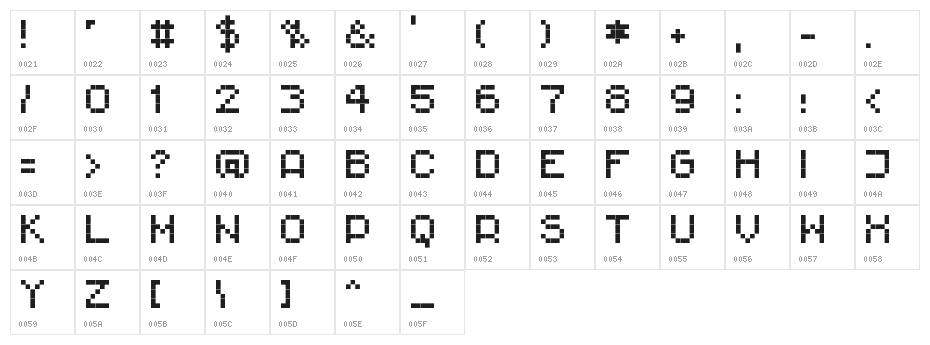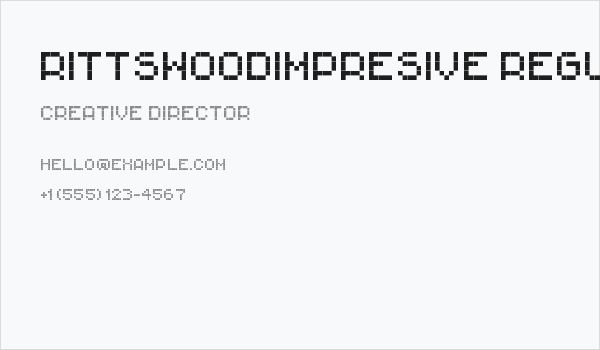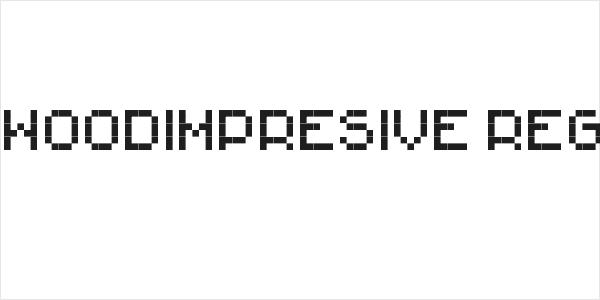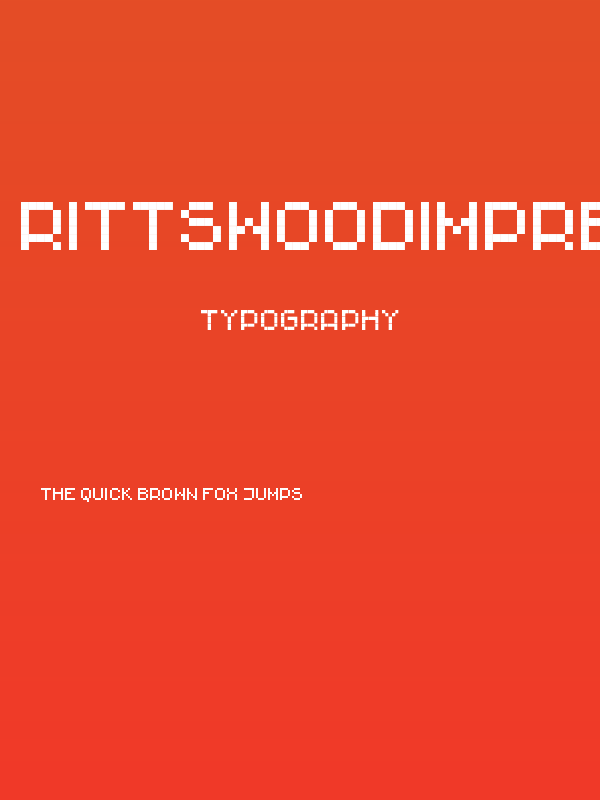
RittswoodImpresive Regular Font
RittswoodImpresive Regular Description
This font features a distinct pixelated style, reminiscent of early digital and arcade game typography. Each character is composed of small square blocks, creating a retro and digital aesthetic. The uppercase and lowercase letters maintain a consistent height, emphasizing uniformity and simplicity. Numbers and special characters follow the same blocky design, ensuring a cohesive look across all glyphs. The font's geometric nature gives it a structured and mechanical feel, making it ideal for projects that aim to evoke nostalgia or a tech-inspired theme.
| Overall Style | Retro, Digital |
| Proposed Projects | Ideal for video game design, retro-themed posters, digital art projects, and tech-related branding. |